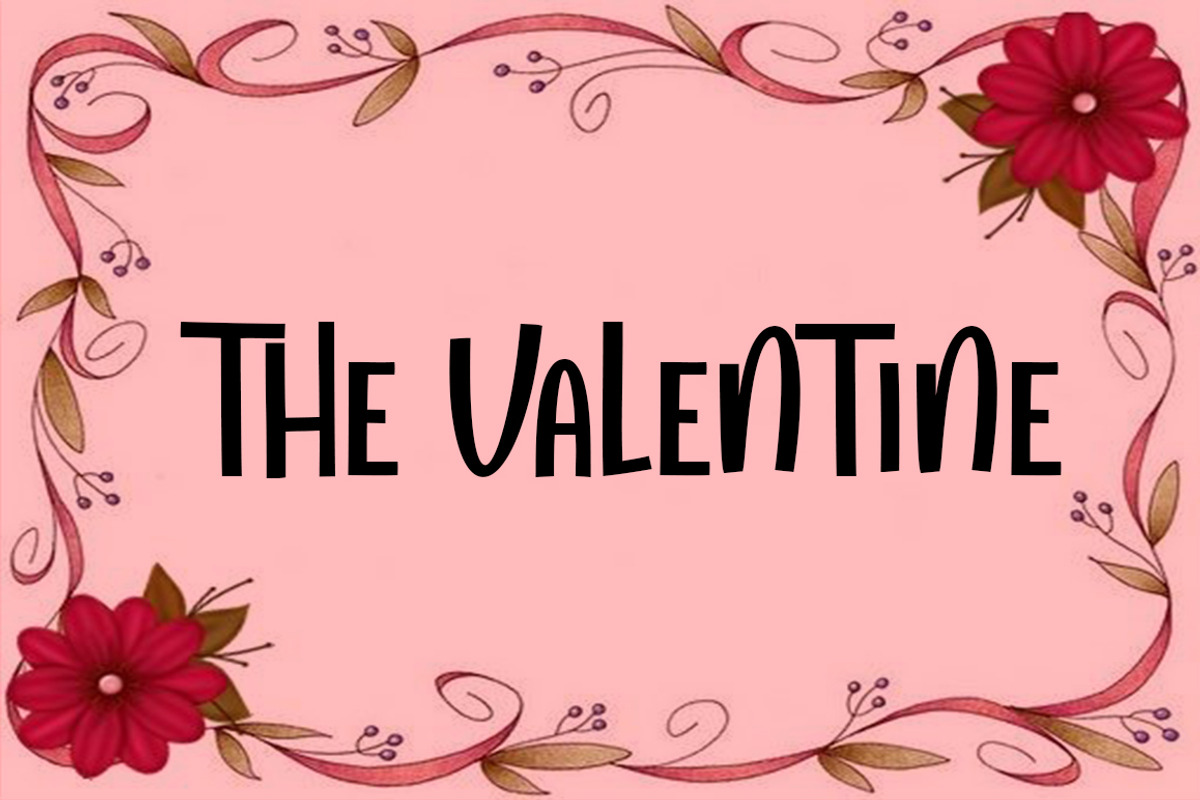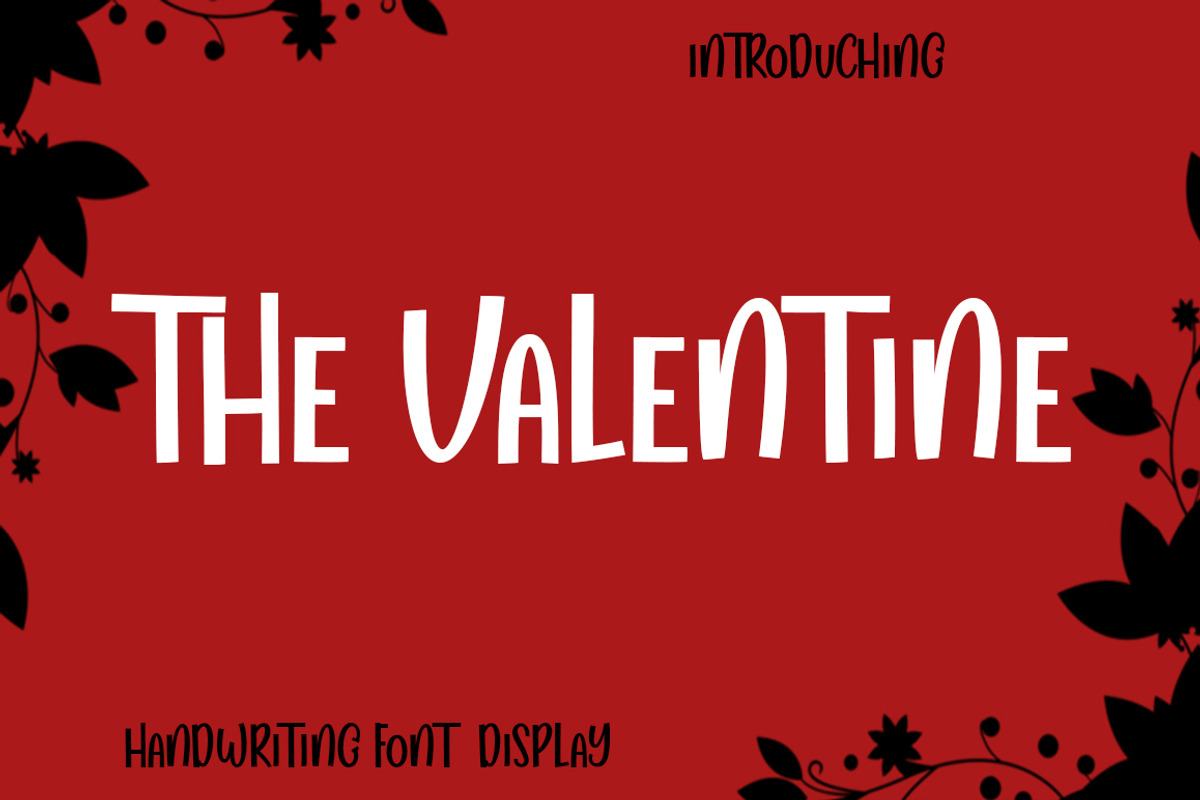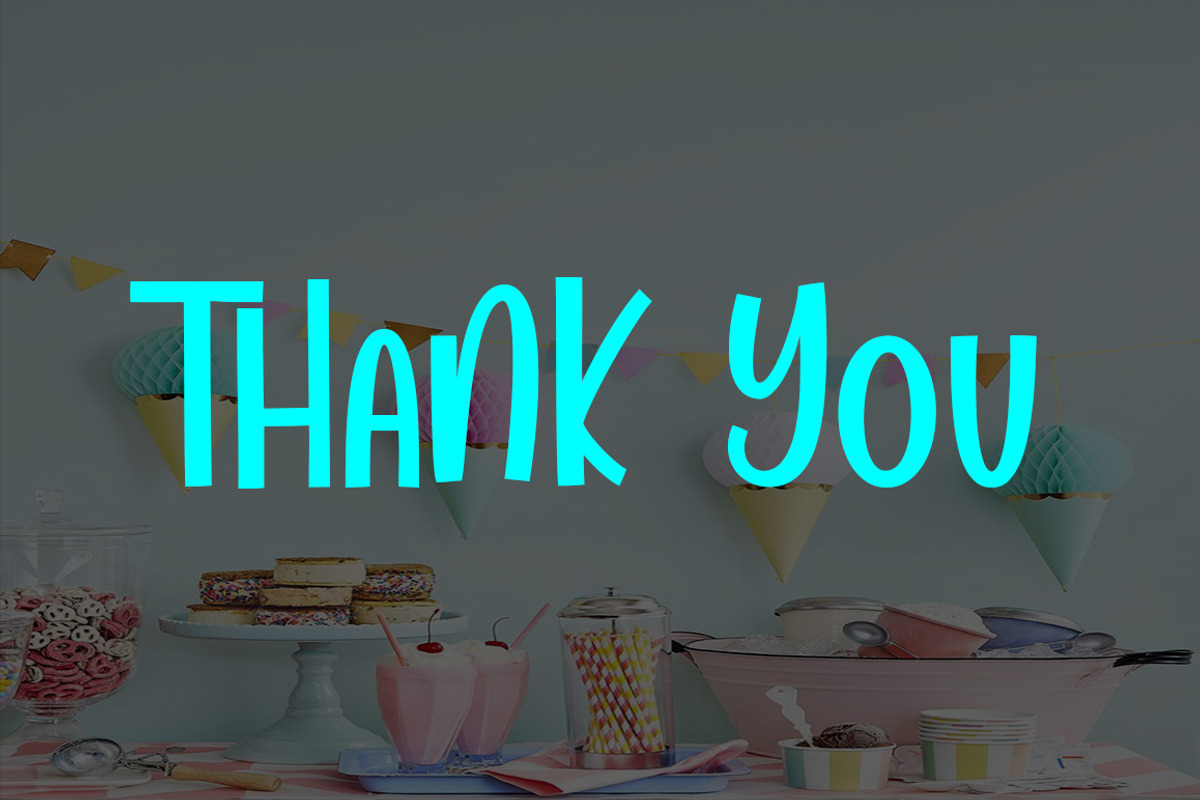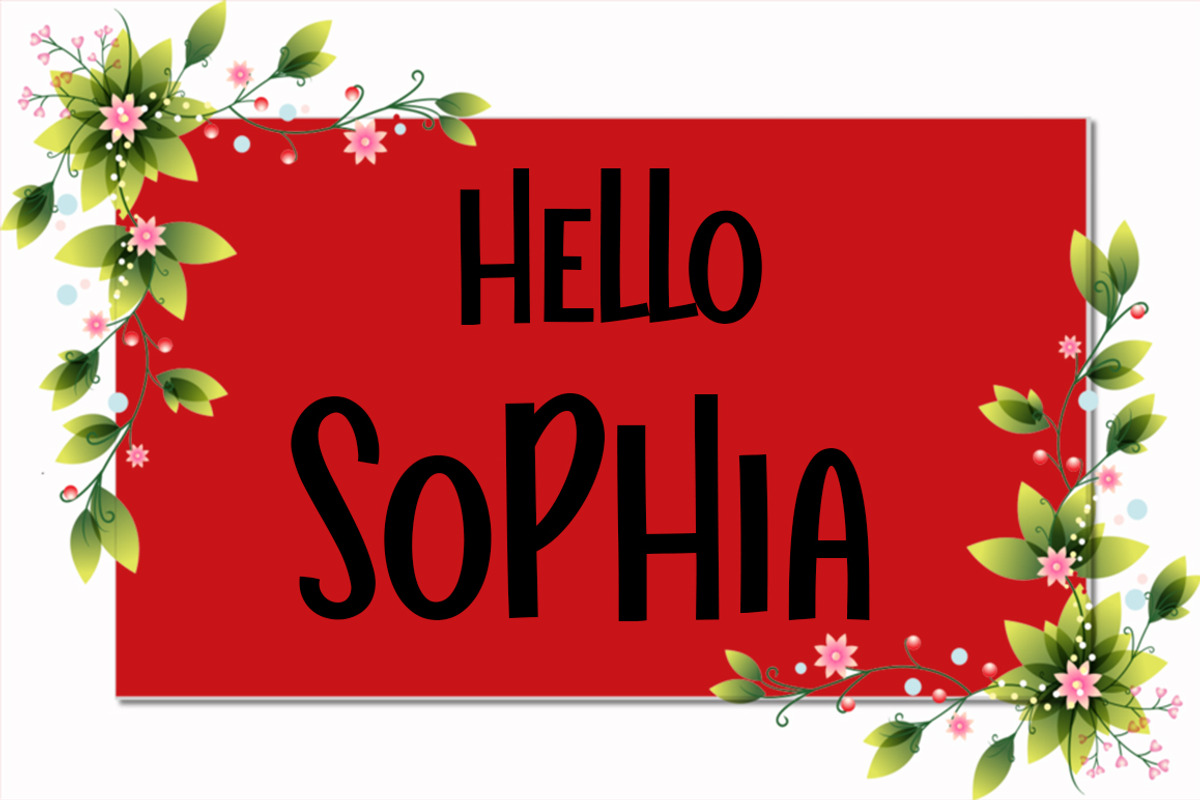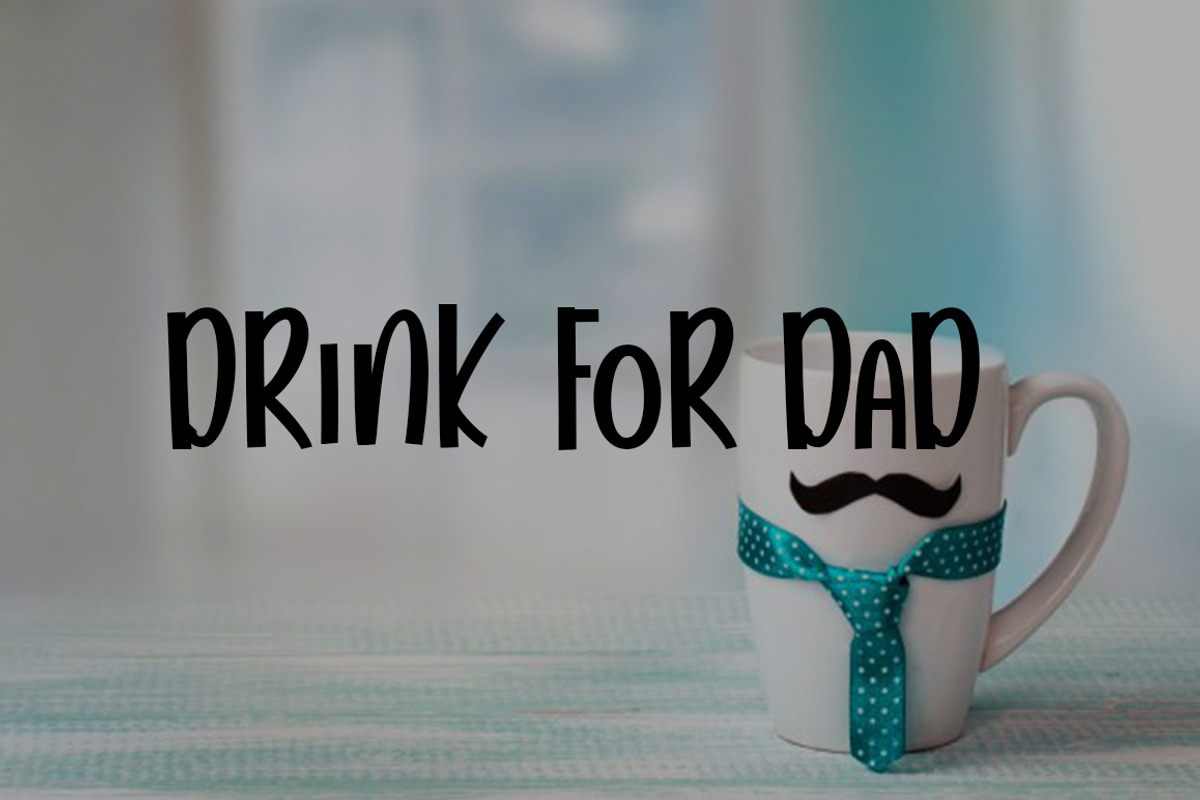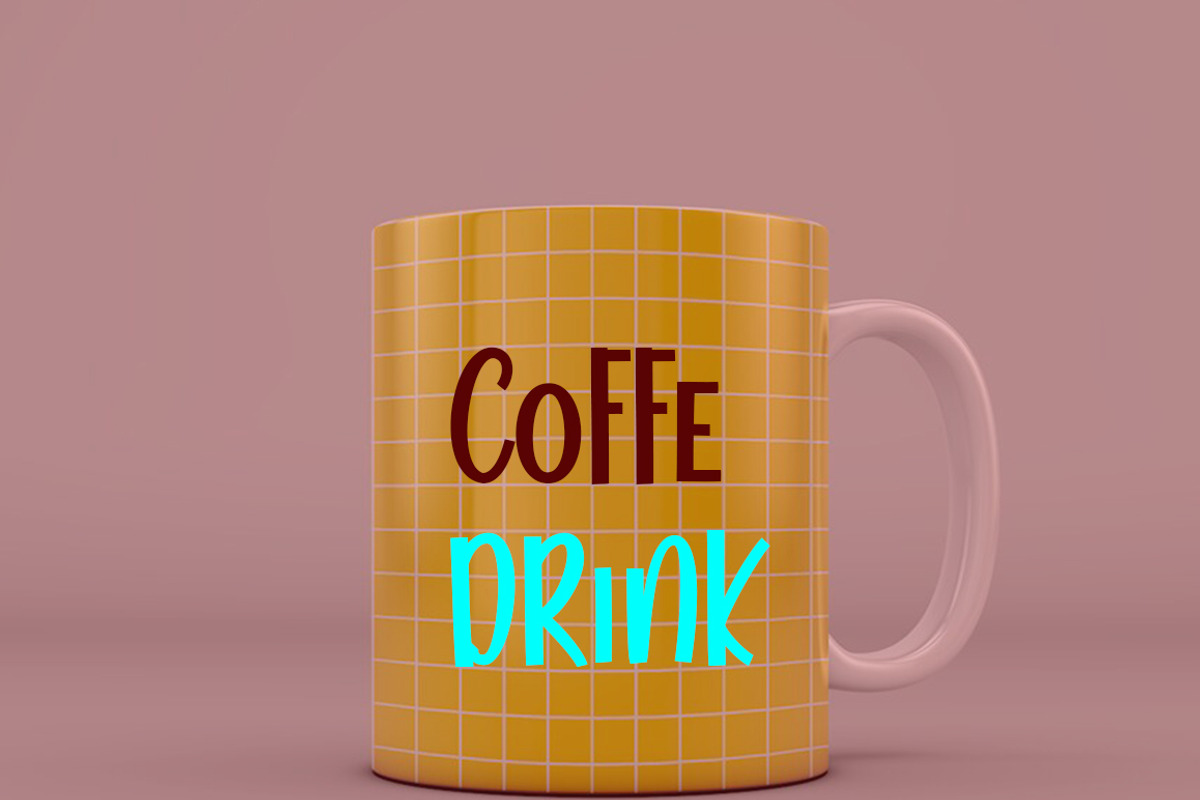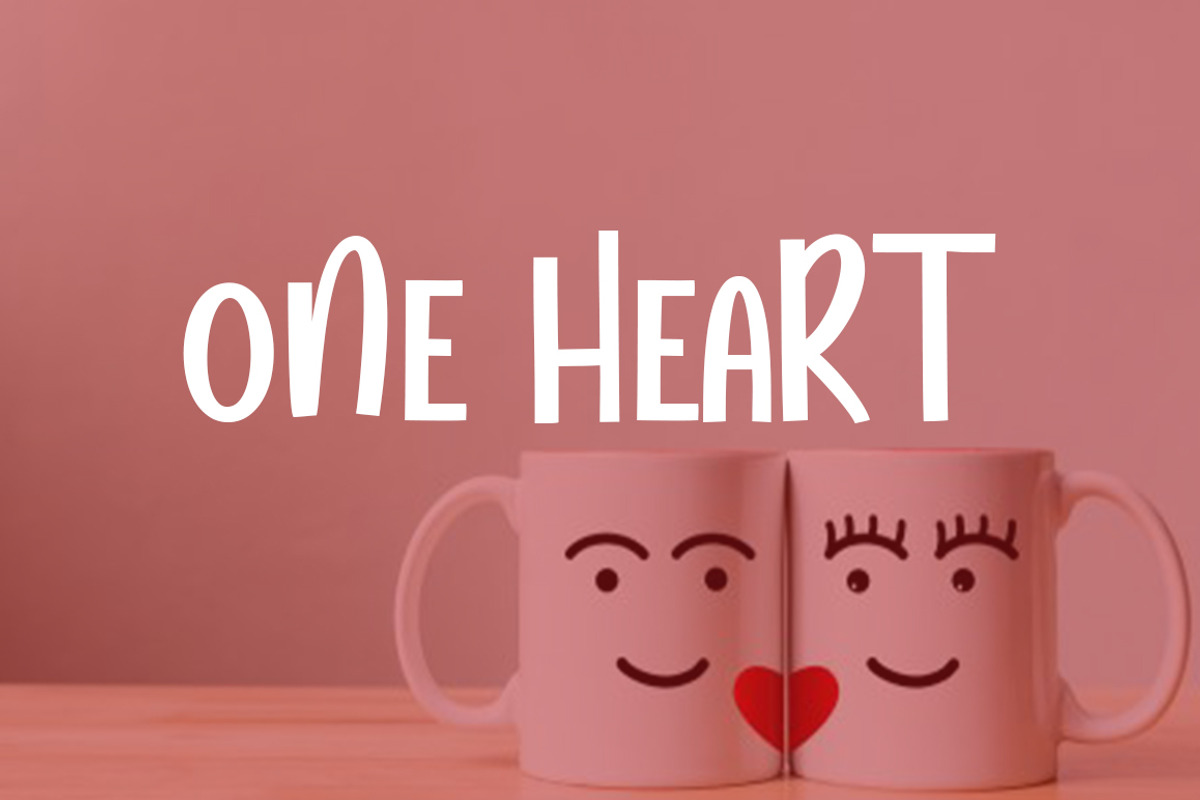
The Valentine
The valentine Font display are The valentine Regular stylish calligraphy that have a varied base line, fine lines, classic and elegant touches. Can be used for various purposes. Such as title, signature, logo, wedding invitation, t-shirt, letterhead, nameplate, label, news, poster, badge etc.
The valentine displays alternate characters. Includes initial letters and terminals, alternatives, ligatures and multiple language support.
a font that made the hand by having the character up and down like a dancer. The valentine has a very unique style of calligraphy, it is very suitable for use in the work of modern design.